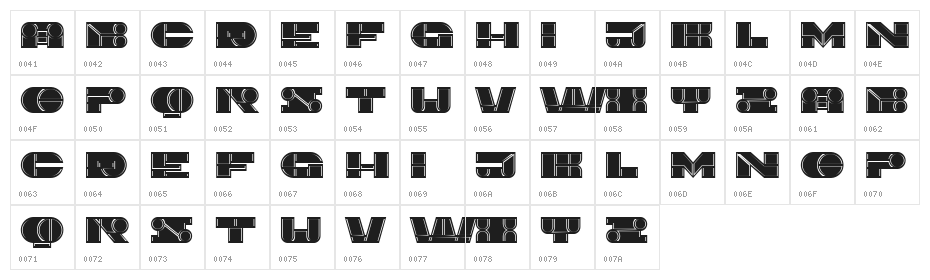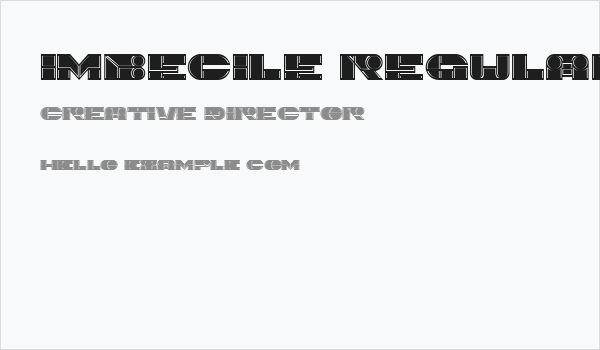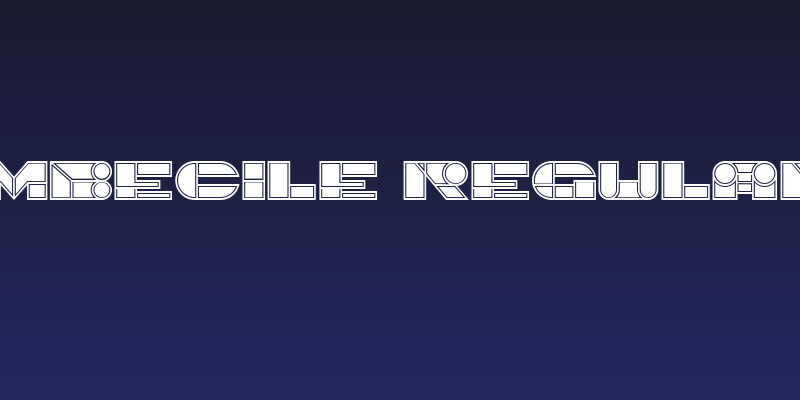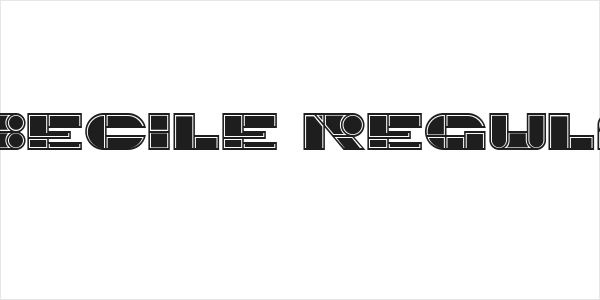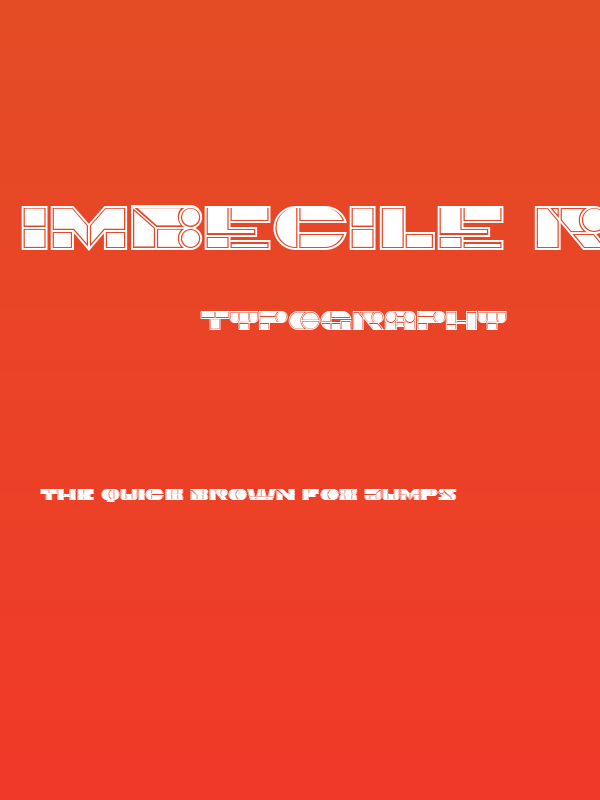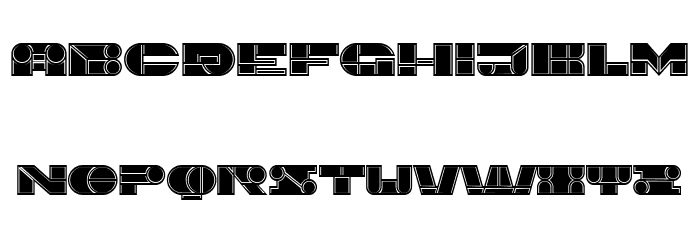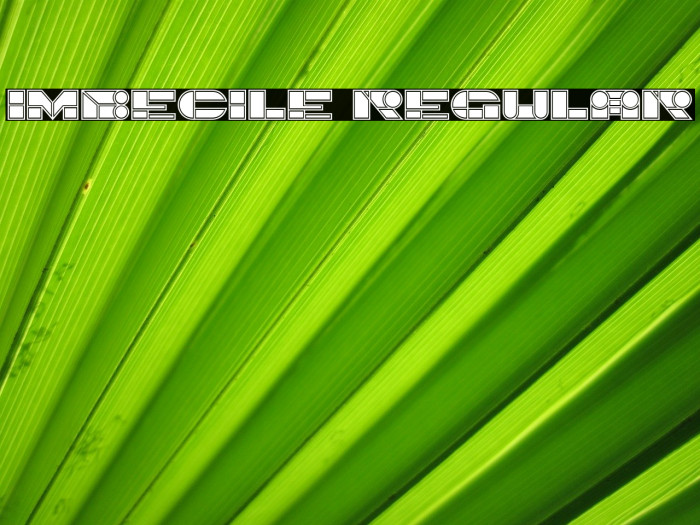
Imbecile Regular Font
Imbecile Regular Description
This font features a bold, geometric design with a distinctively modern and decorative style. The characters are constructed with thick, uniform strokes and incorporate unique cutouts and lines that create a sense of movement and complexity. The uppercase letters are particularly striking, with a futuristic appearance that combines both angular and rounded elements. The font's design is highly stylized, making it ideal for attention-grabbing headlines or creative projects that require a strong visual impact. The overall aesthetic is both playful and sophisticated, offering a unique blend of artistry and readability.
| Proposed Projects | Ideal for creative projects such as posters, album covers, branding, and editorial design. |